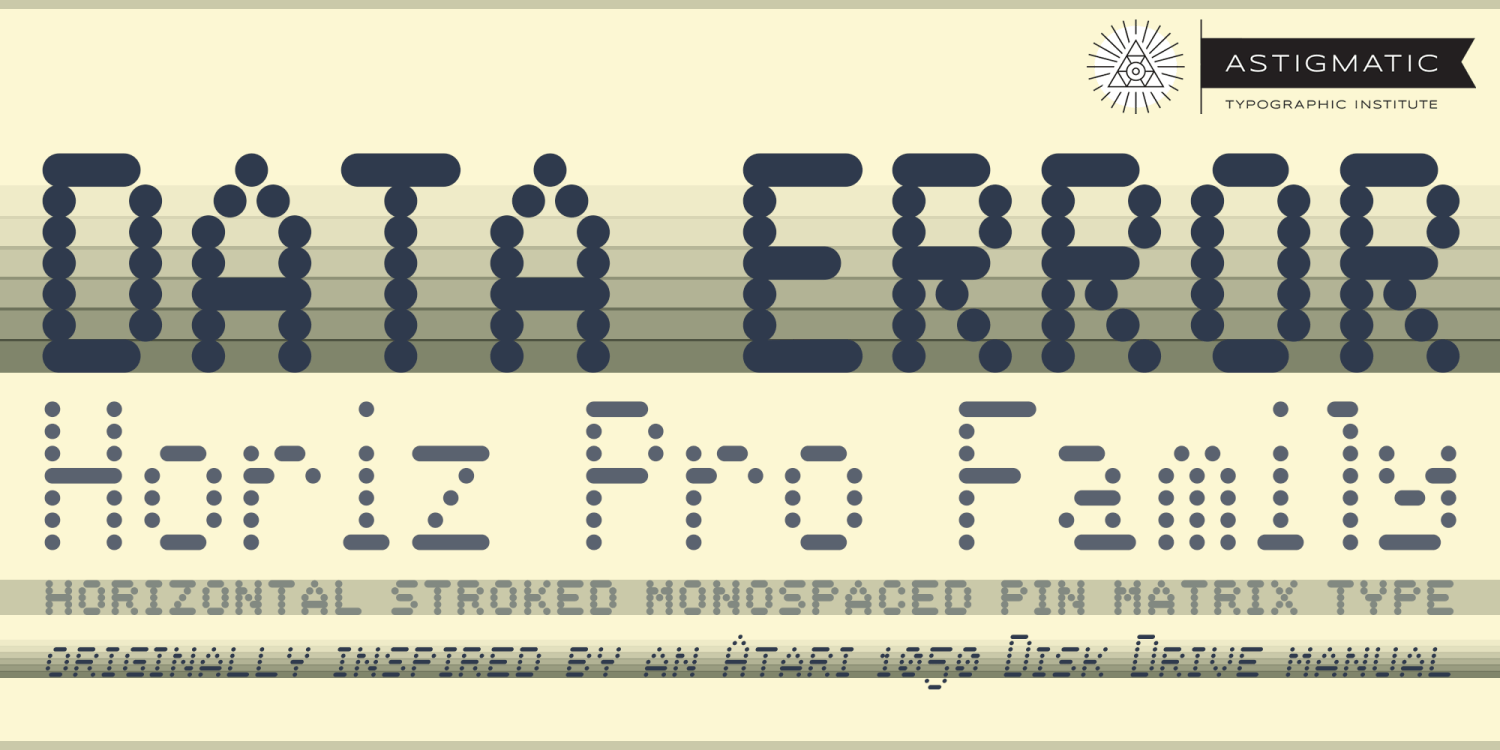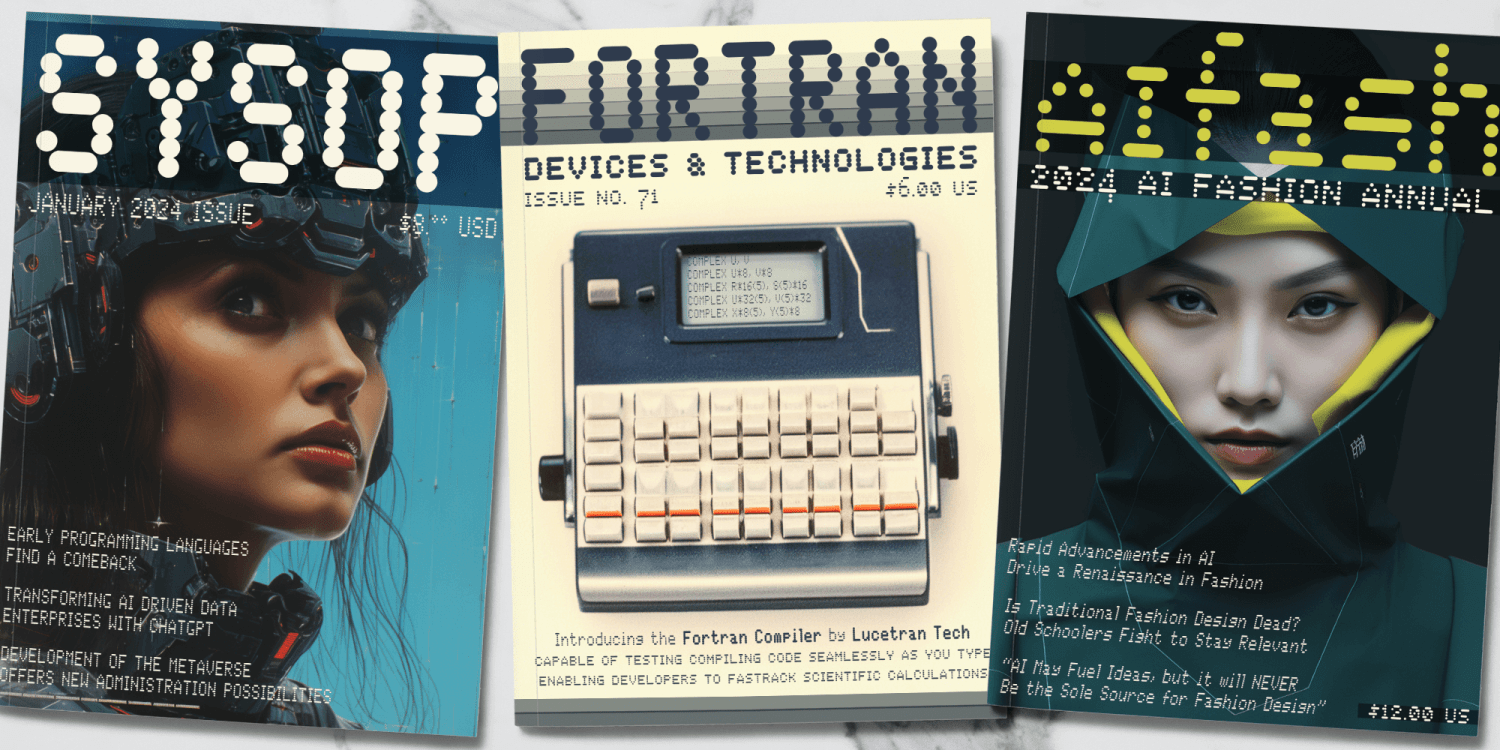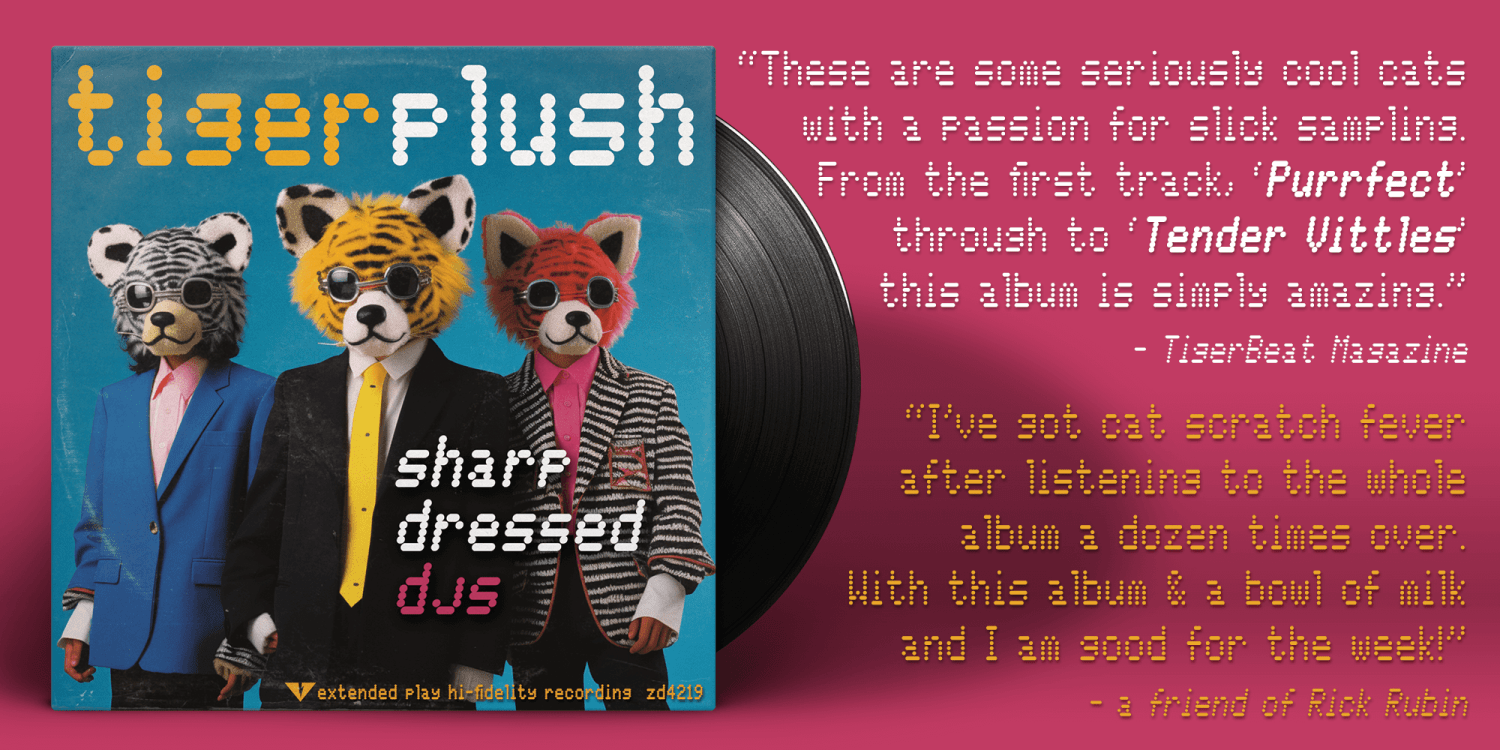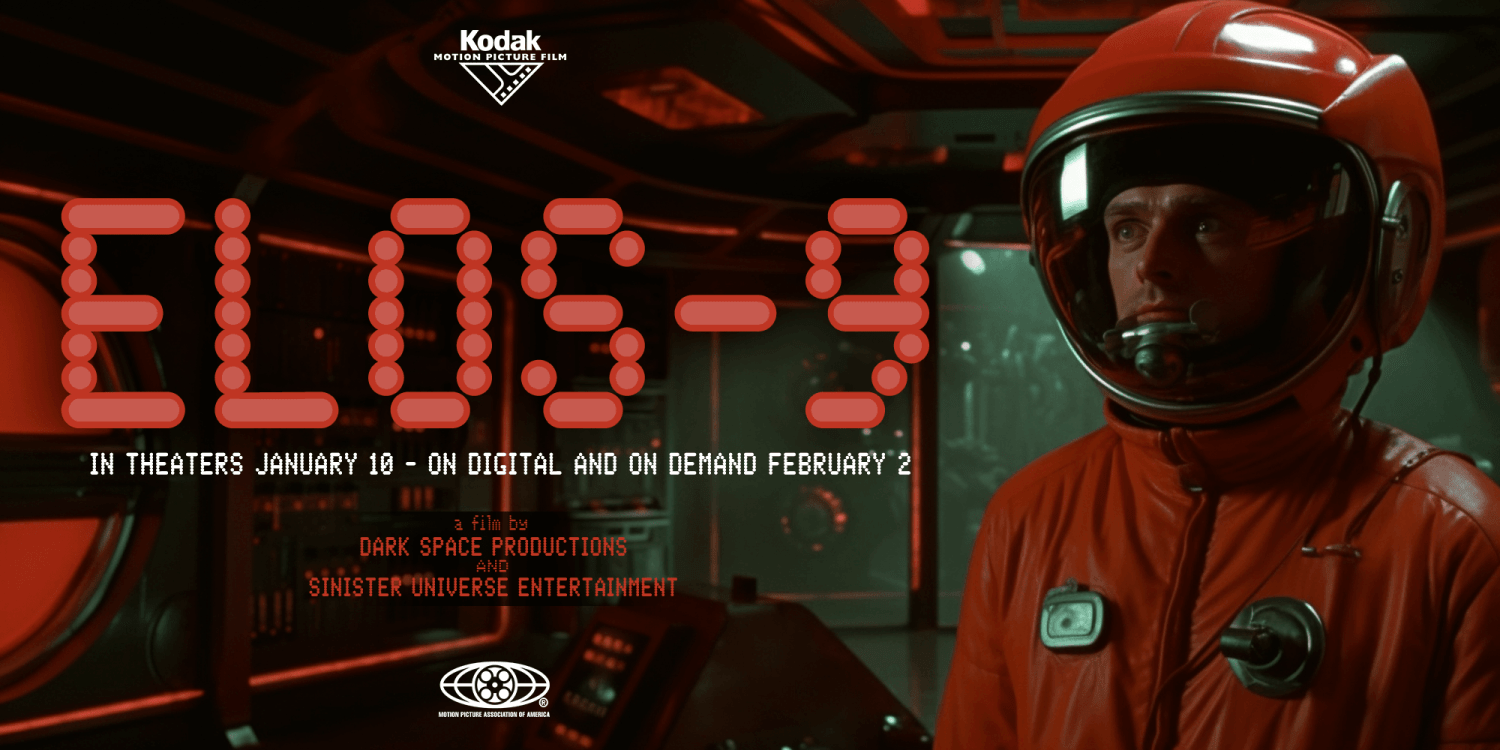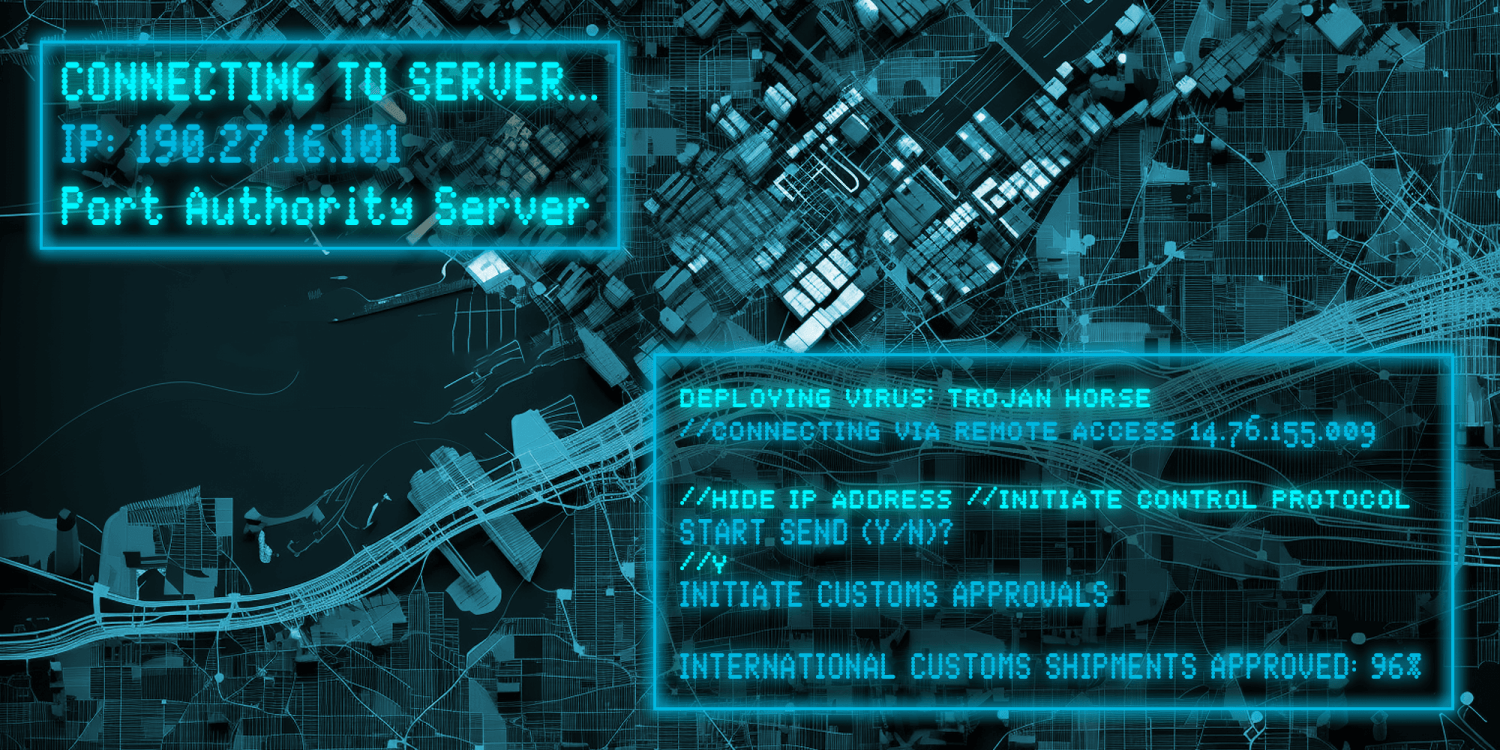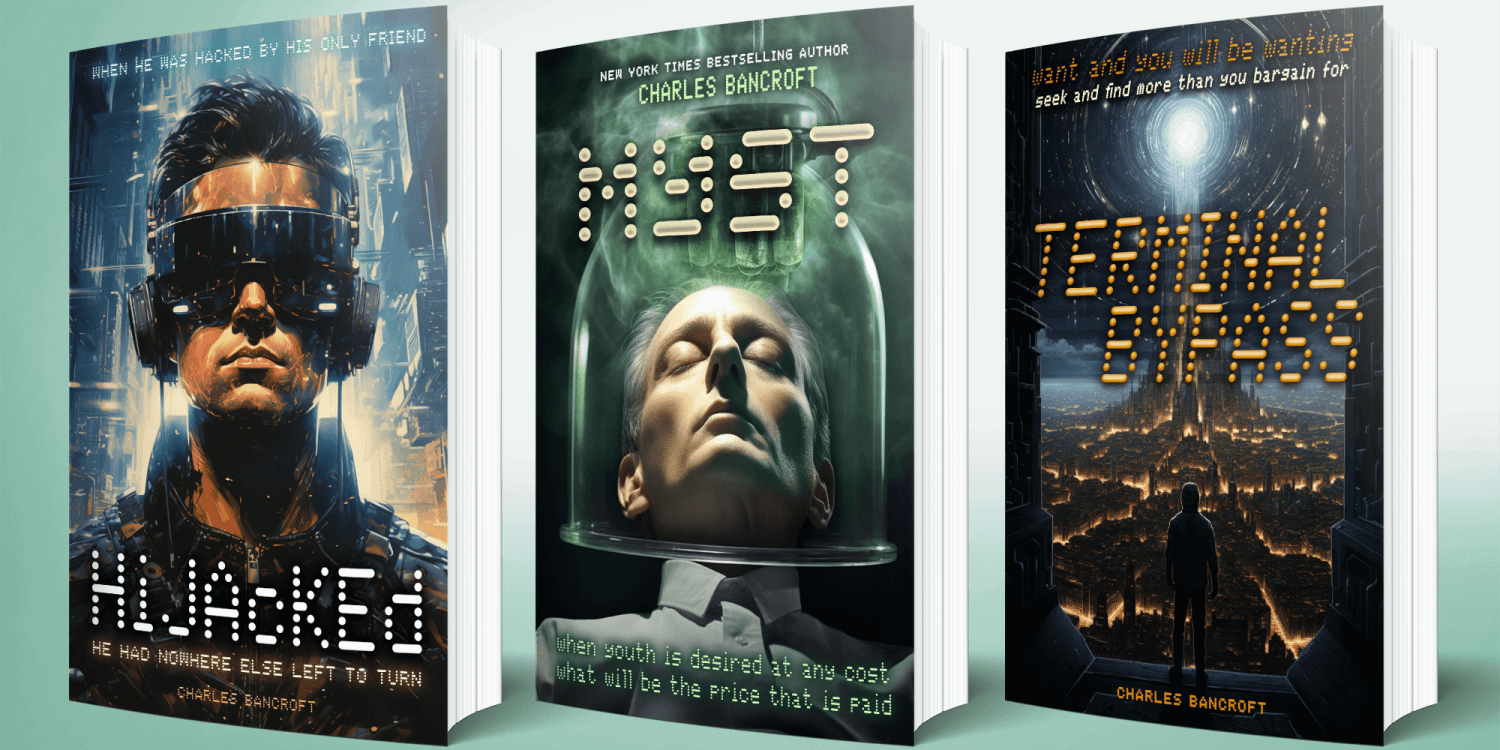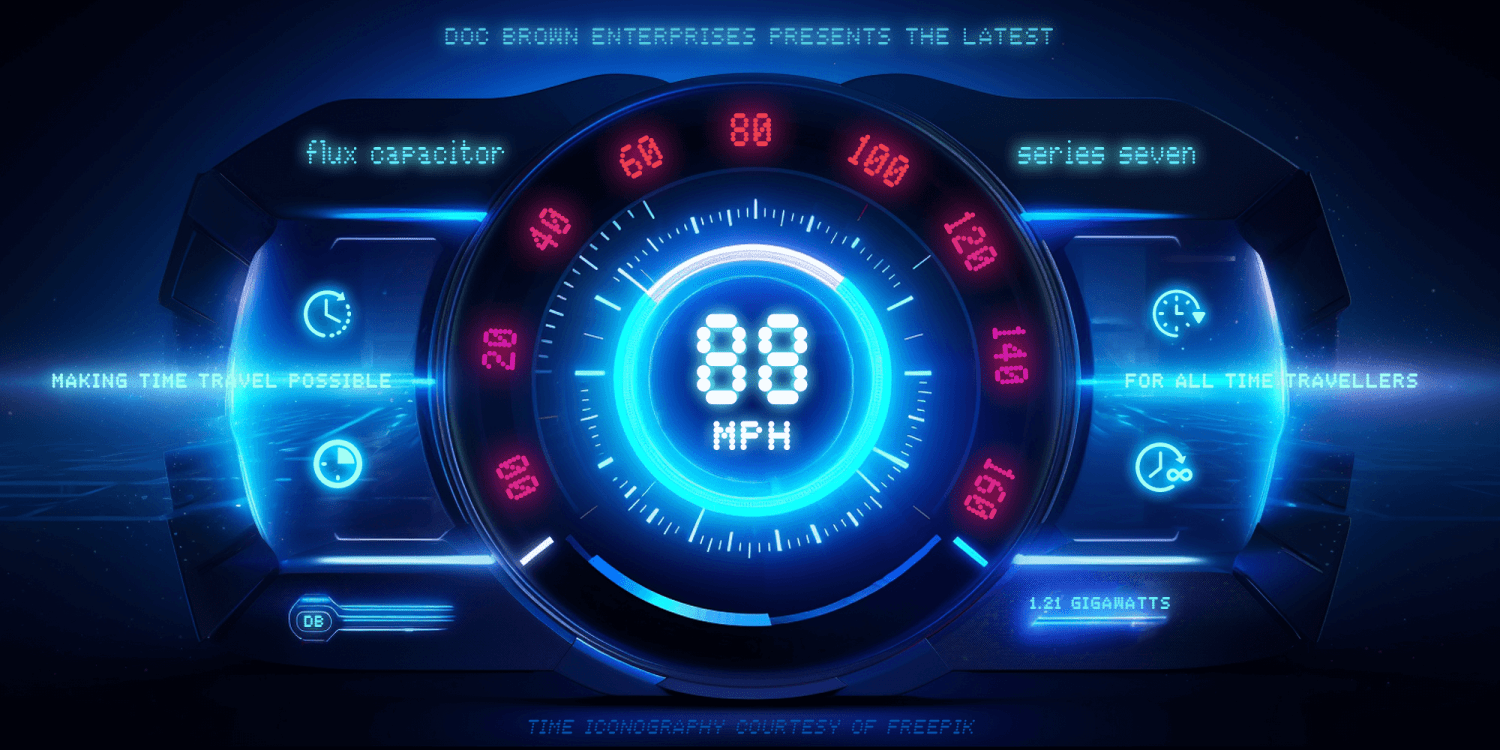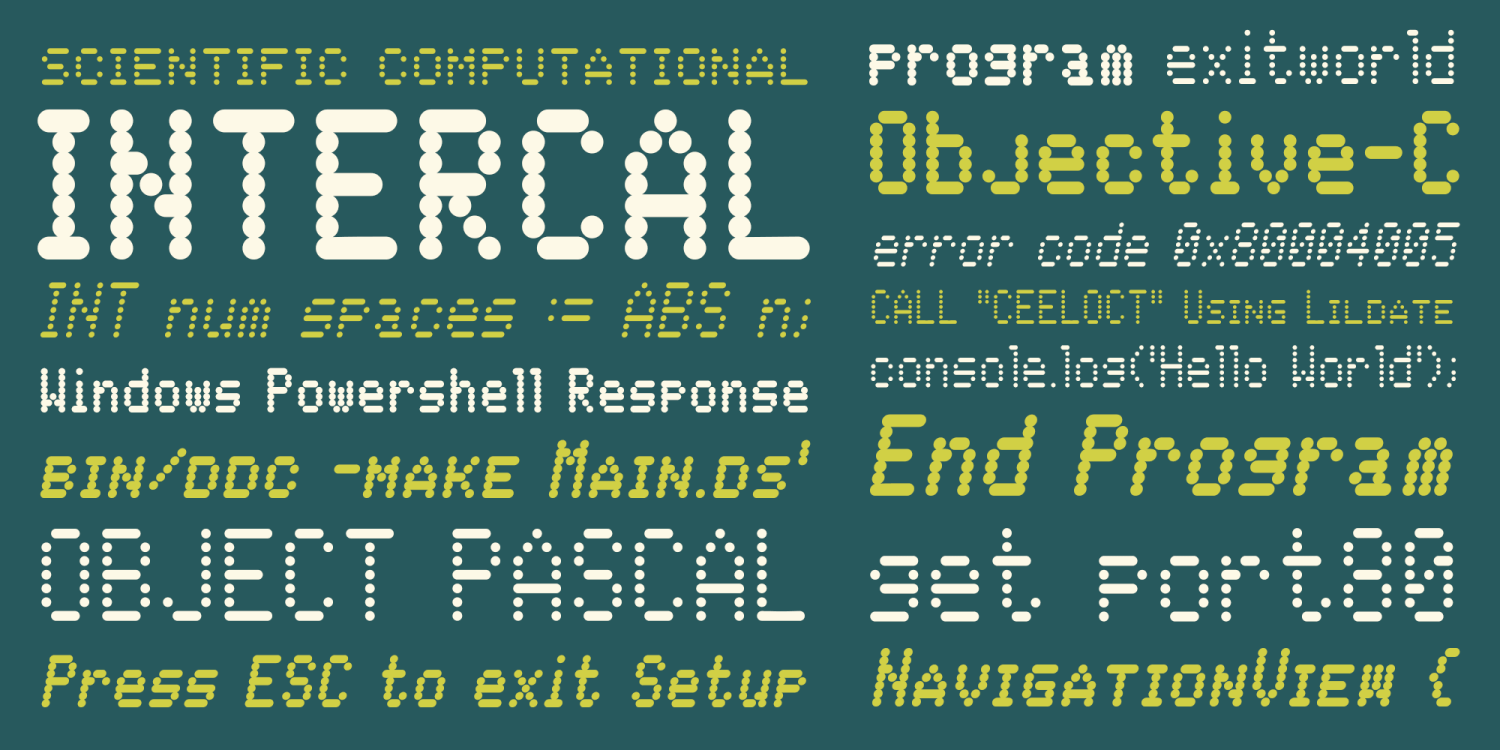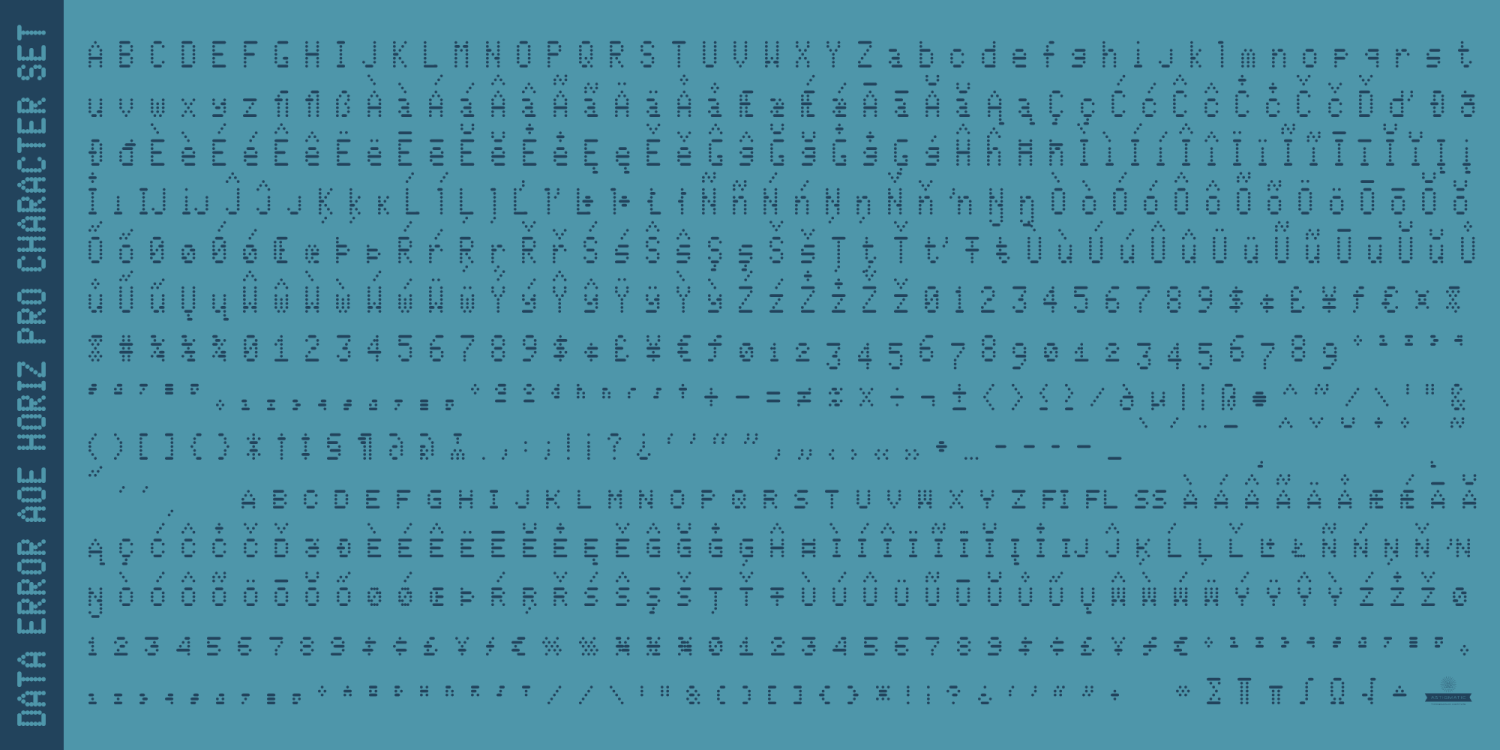
Data Error Horiz AOE Pro
The Data Error Horiz AOE Pro family is a spinoff of my Data Error AOE Pro family. Quite simply, it takes on a slightly different feel than the original pin matrix grid by stroking across all horizontal glyph lines. The horizontal lines add more readability to the original grid and lend a more sci-fi vibe to the family.
Check out the range of posters created to see the various Capitals, Lowercase, smallcaps and varying styles that the family has to offer and how it both differs from and compliments the original Data Error AOE Pro family.